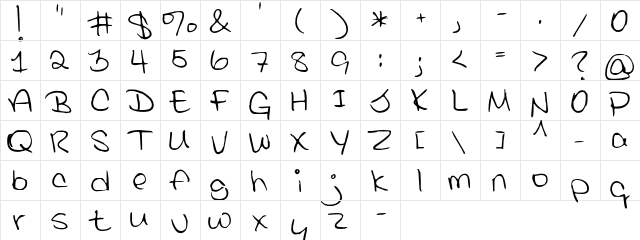
Brianne Hand Regular
| Foundry | Brianne - fonted by Font Garden |
| Designer | Ellinor Rapp |
Design Context for Brianne Hand Typeface
Brianne Hand flows with the natural rhythm of handwritten lettering, making it ideal for designs that call for warmth and personal expression.
Font Pairing: Combine Brianne Hand with a simple geometric sans for maximum contrast — the tension between flowing curves and clean structure is a classic typographic pairing.
Pro Tip: Use Brianne Hand for short runs of text — names, titles, or taglines. Extended body copy in script faces tires the eye quickly.